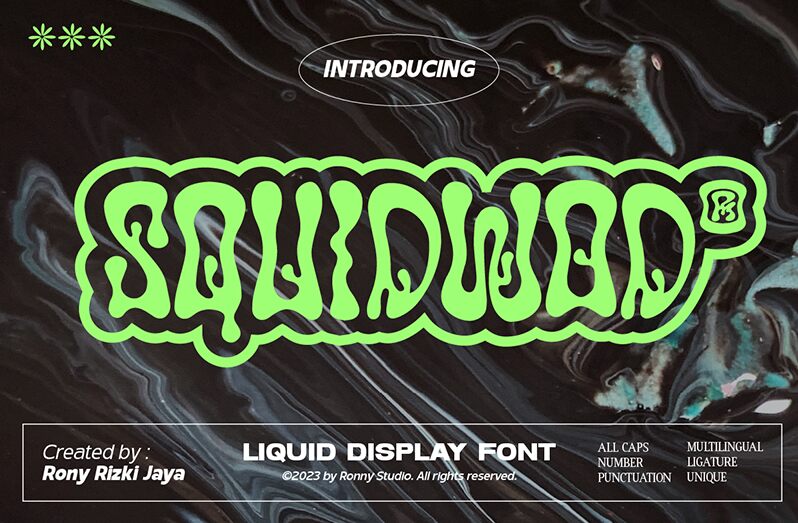
Squidwod
Squidwod font is a groovy display type by Ronny Studio. The condensed font is fluid and organic with oversized curved lines that put joy into reading without making the content difficult to read. The form will remind you very much of the 1960s psychedelic style and retro aesthetics, both of which are geared towards cover designs rather than for long text reads.
Use this free font by integrating it into your advertising billboard designs, website graphics, or other branding elements like packages or banners. Use it for your logo designing ideas or simply use it to decorate invitations for upcoming parties. Pay attention to scale since Squidwod has rich details that can easily go unnoticed if applied with small sizes; best works would be those displaying medium-scale typography such as books, magazines, and poster covers.